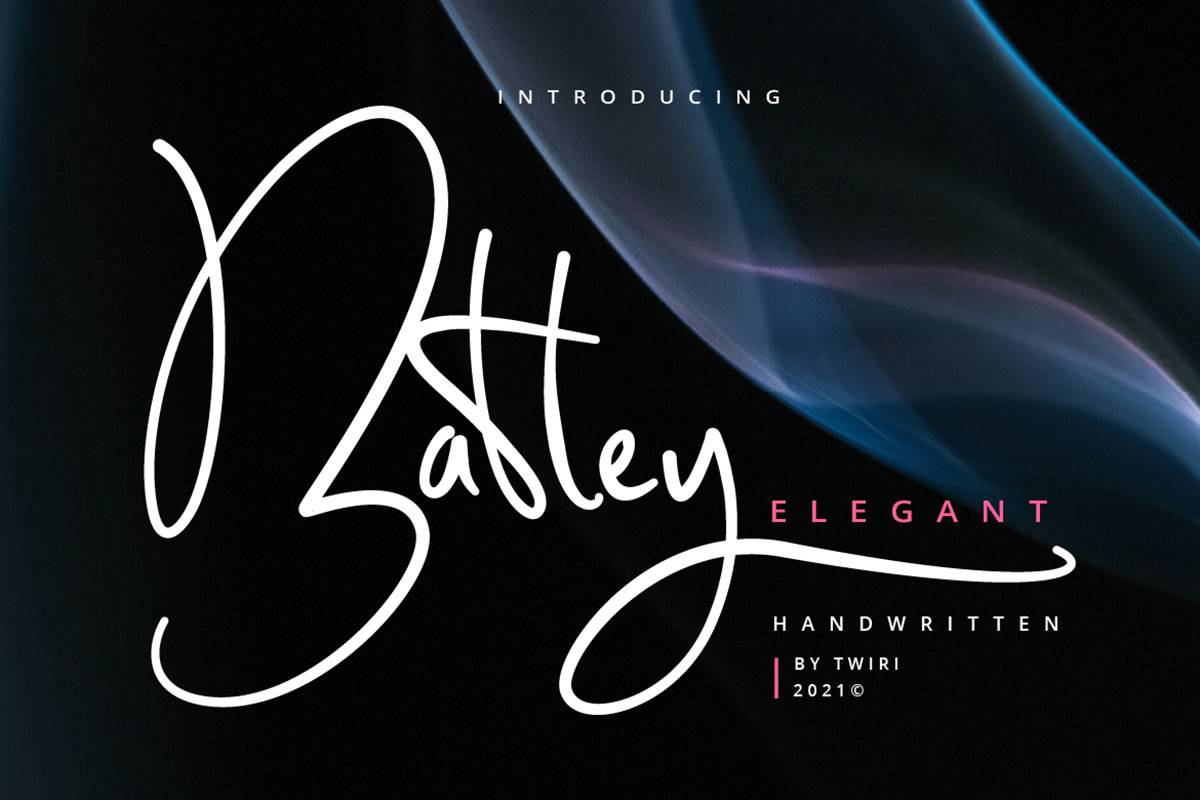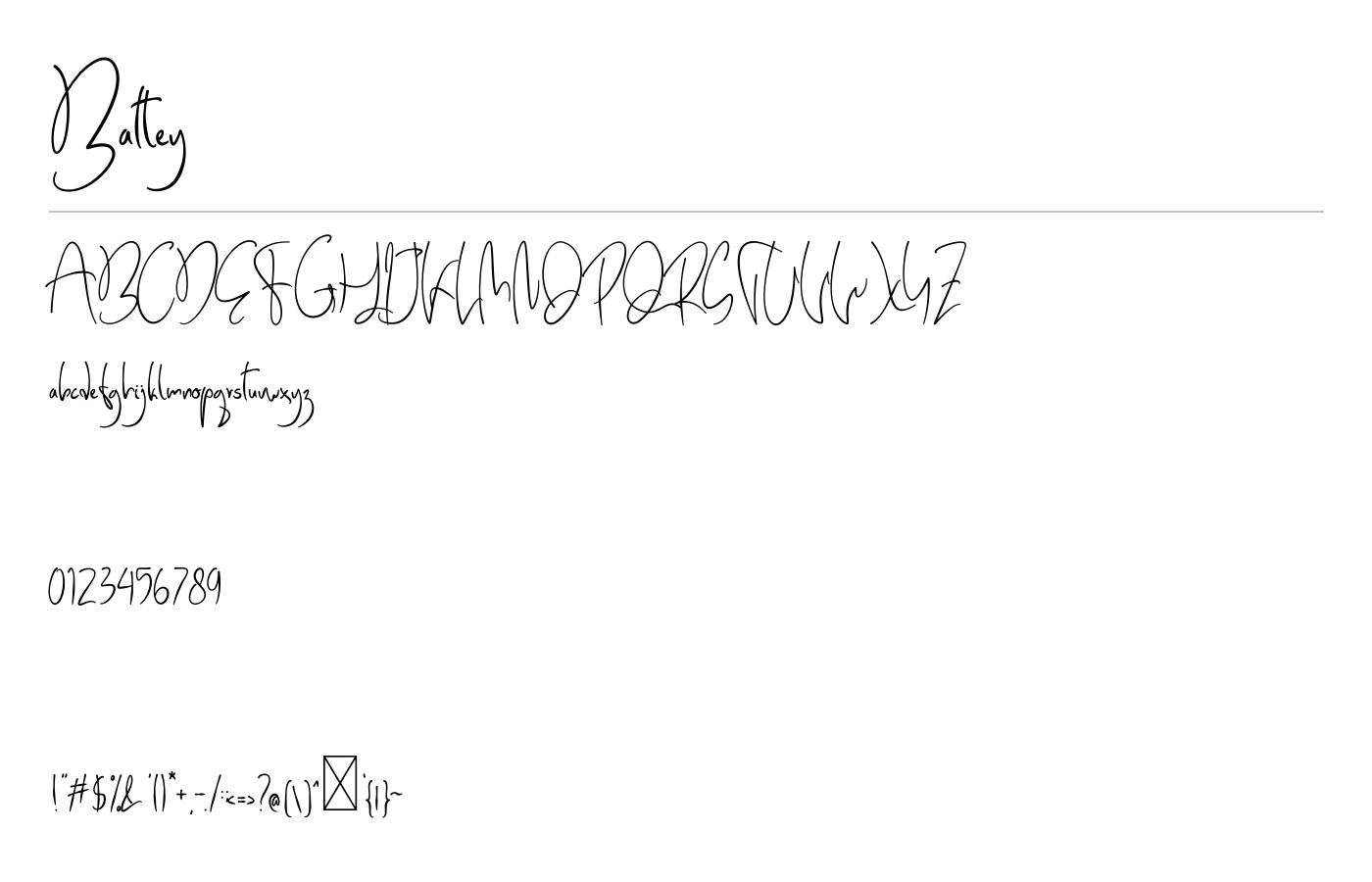
Batley Elegant is a delicate, handwritten script font characterized by its thin, flowing lines and highly stylized, elongated letterforms. Its airy, graceful style conveys a personal and artistic feel, making it ideal for creative branding, invitations, and elegant design projects where a sophisticated yet approachable touch is desired.
Batley Elegant Font
About Batley Elegant Font
| Font family | Batley Elegant Font |
| Release date | 2021-10-07 |
| Designer | Twiri |